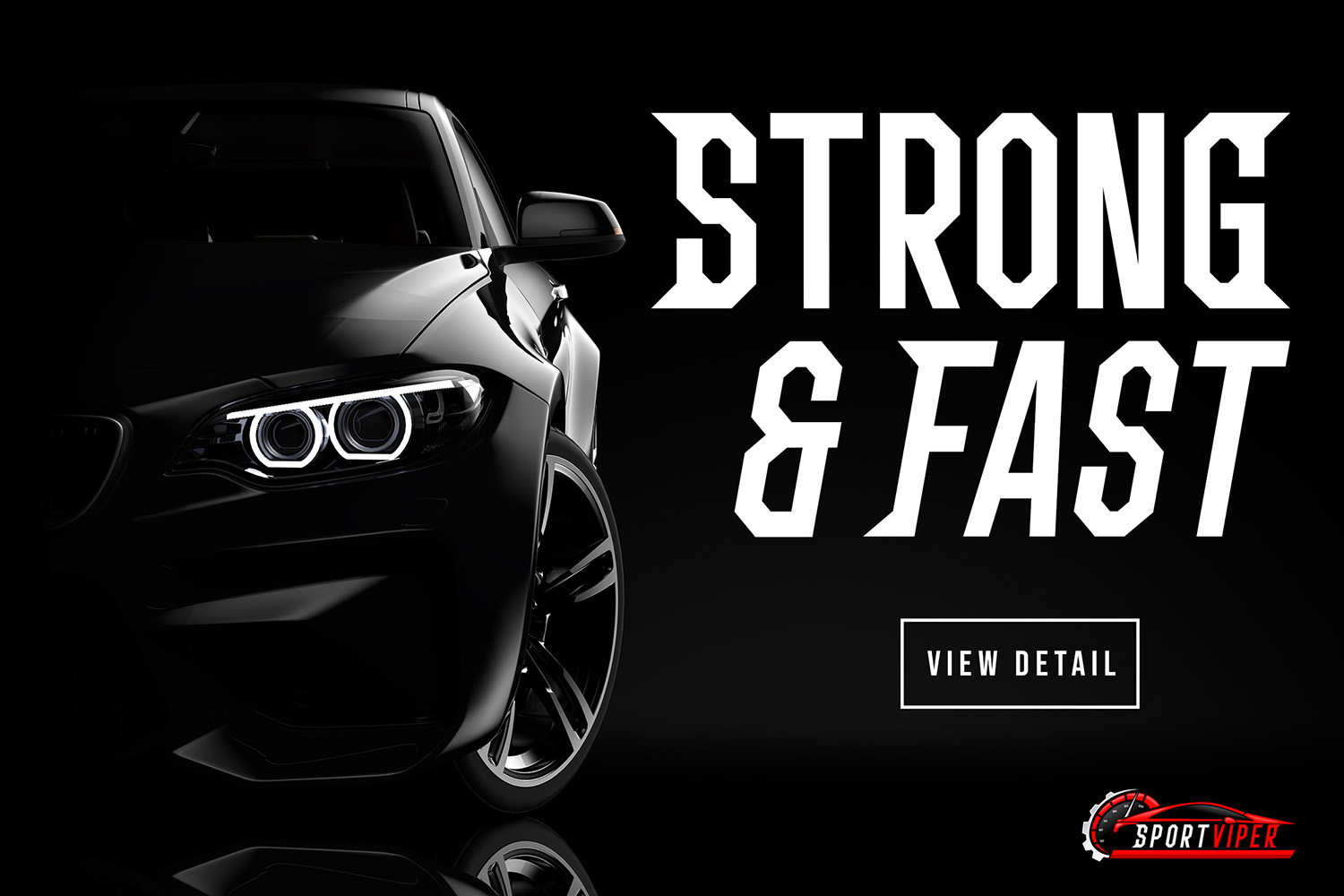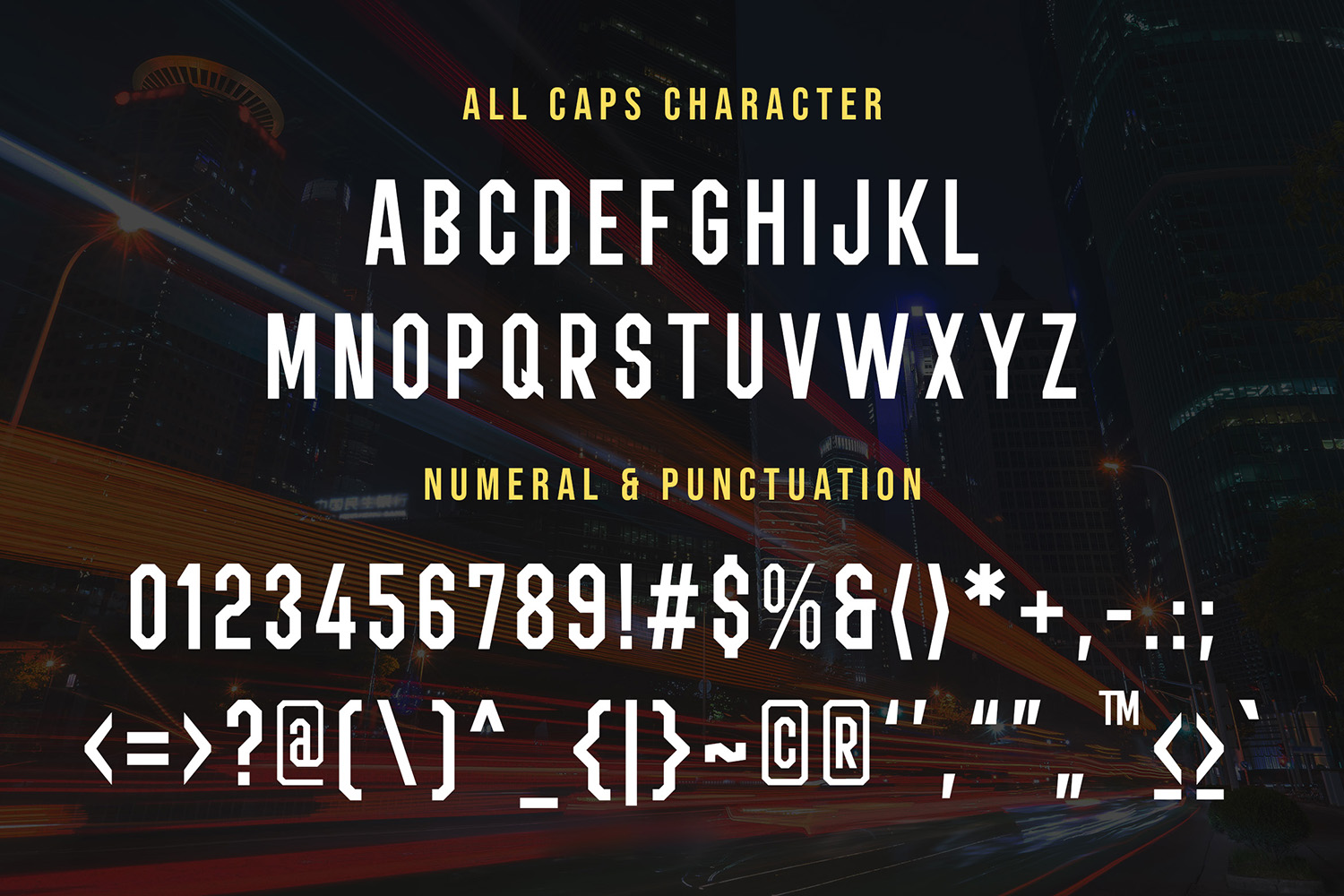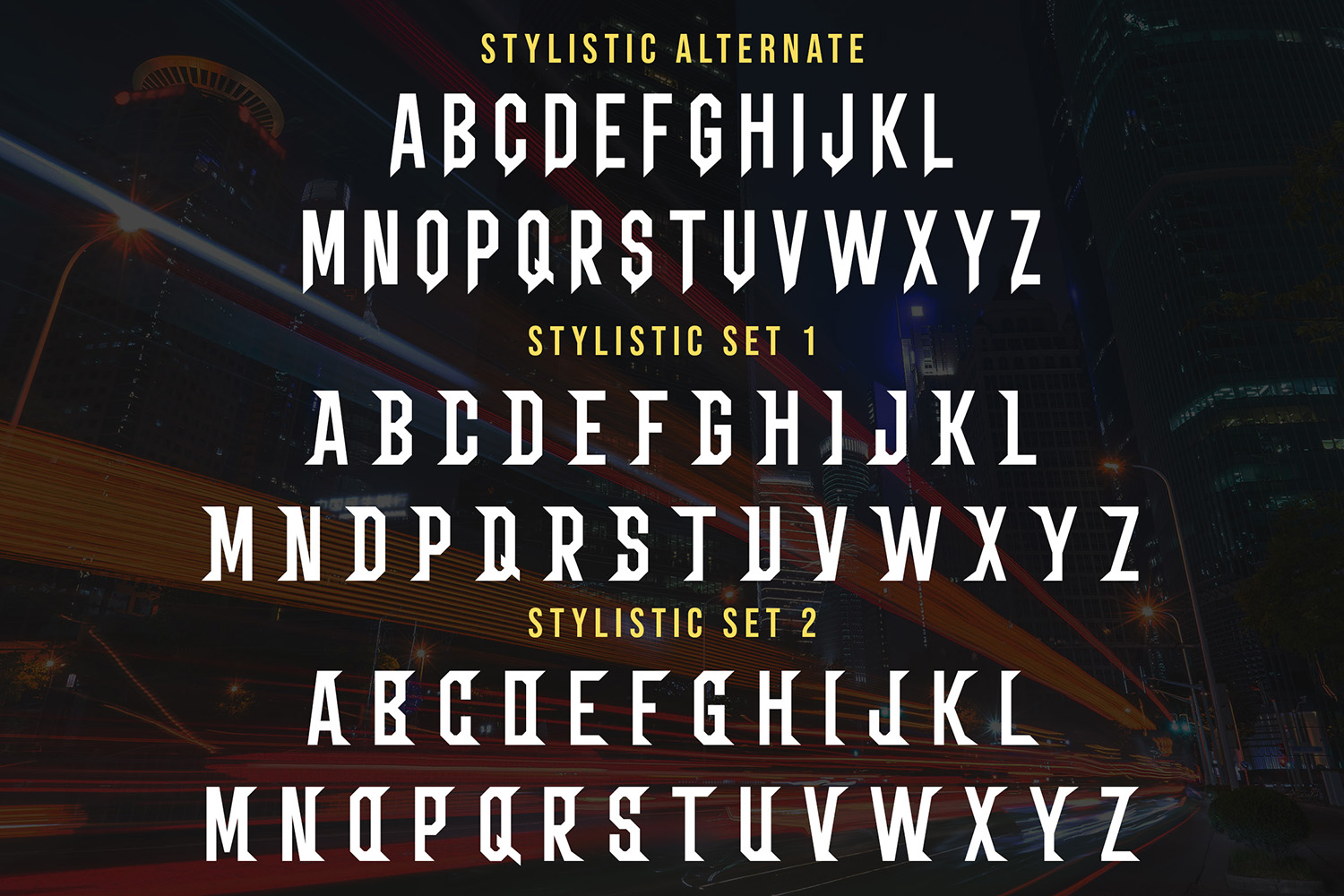
Sportviper Free Font
Sportviper Free Font is a strong and bold display font that gives the impression of a strong and fast, present in all CAPS with 4 styles, We build the bold and strong font with the total aim to the games, exports, speed, cars, vehicles, and automotive vibes.  Will be a perfect match for the sport and gaming, automotive events, branding, logos, cars and motorcycle posters, advertising, anytime you want some more “speed” and “sporty” in your visual project. This free typeface was designed by a talented Abas Creative. If you like it don’t forget to check out the full version.